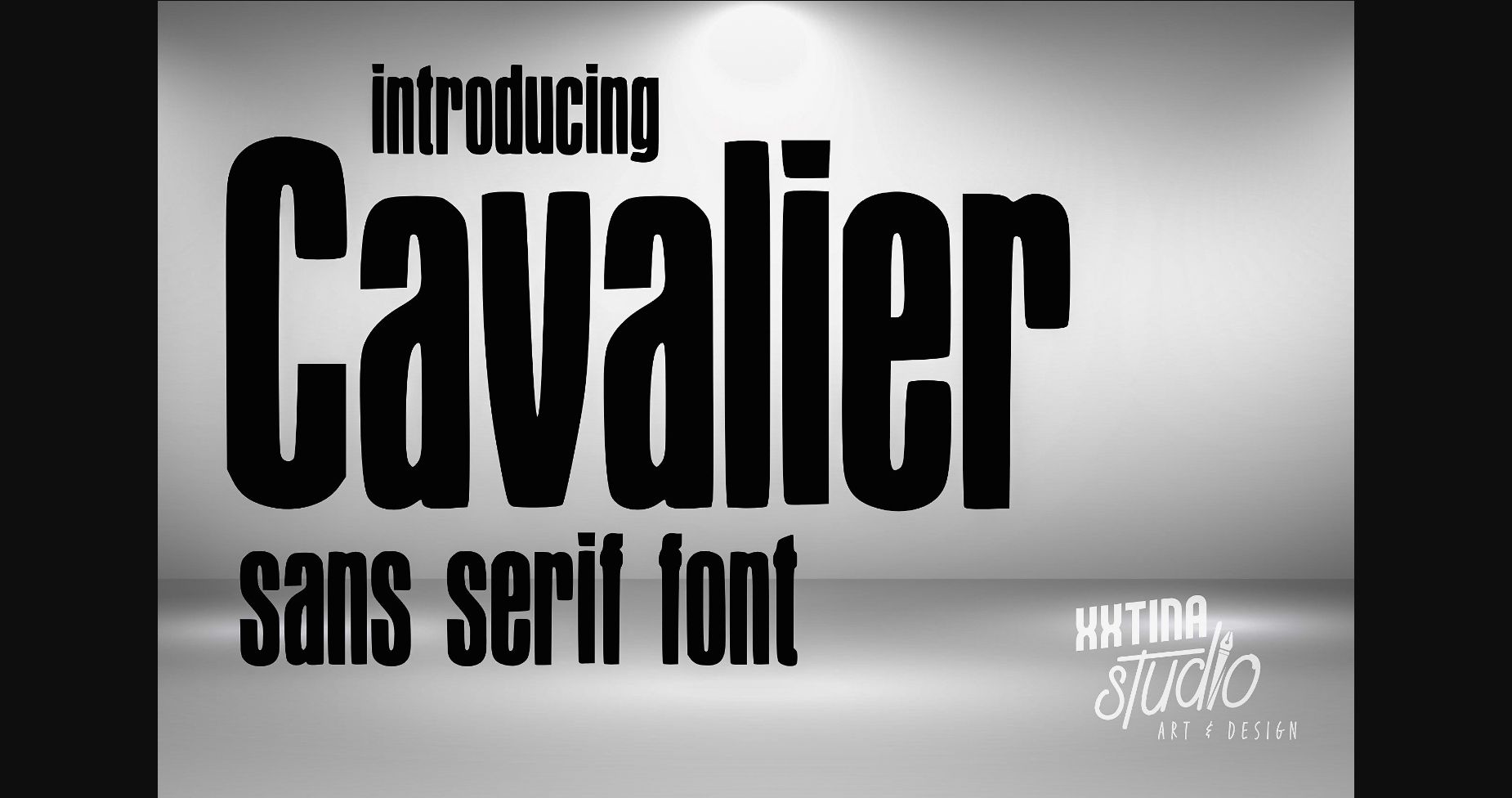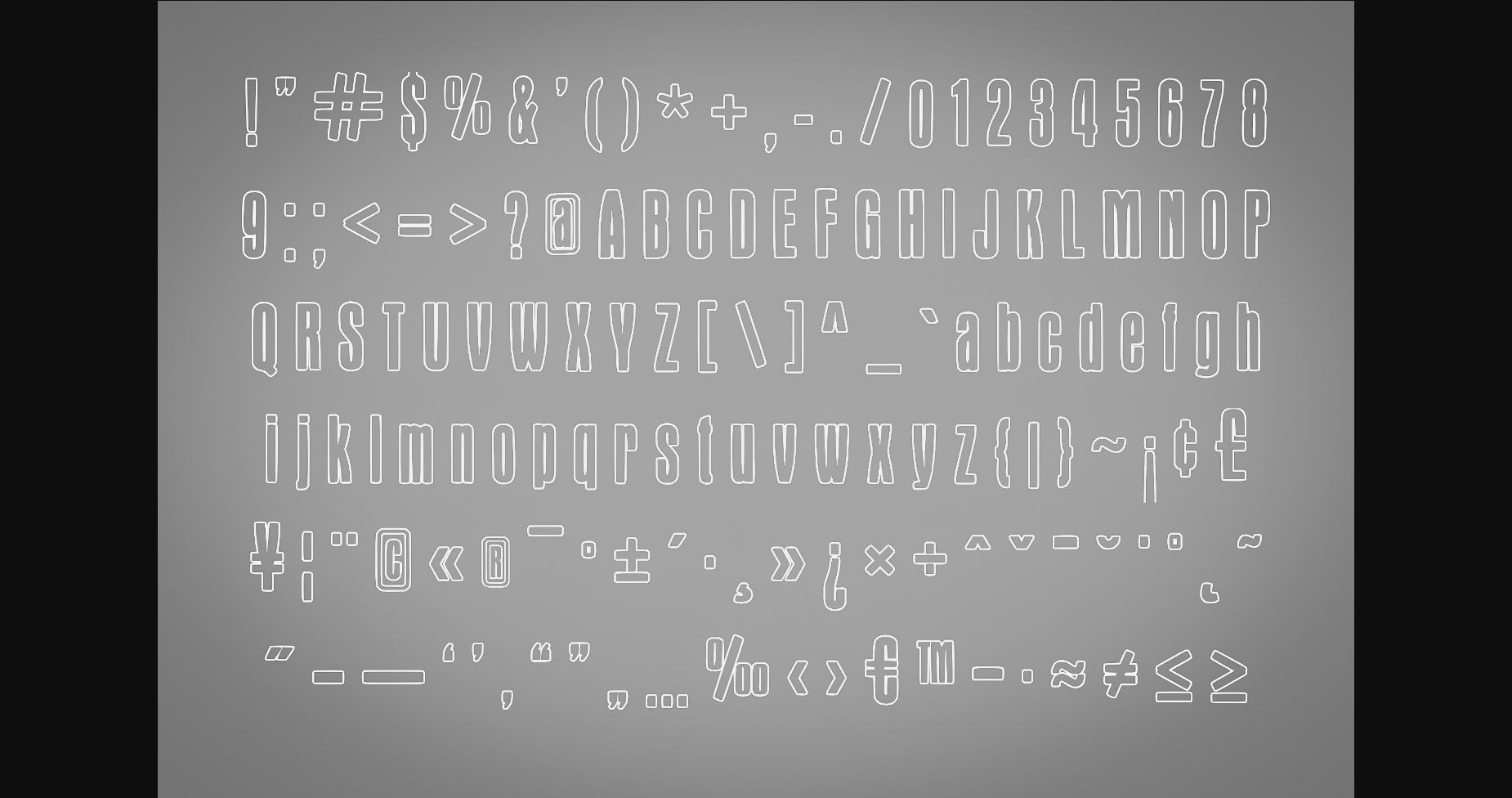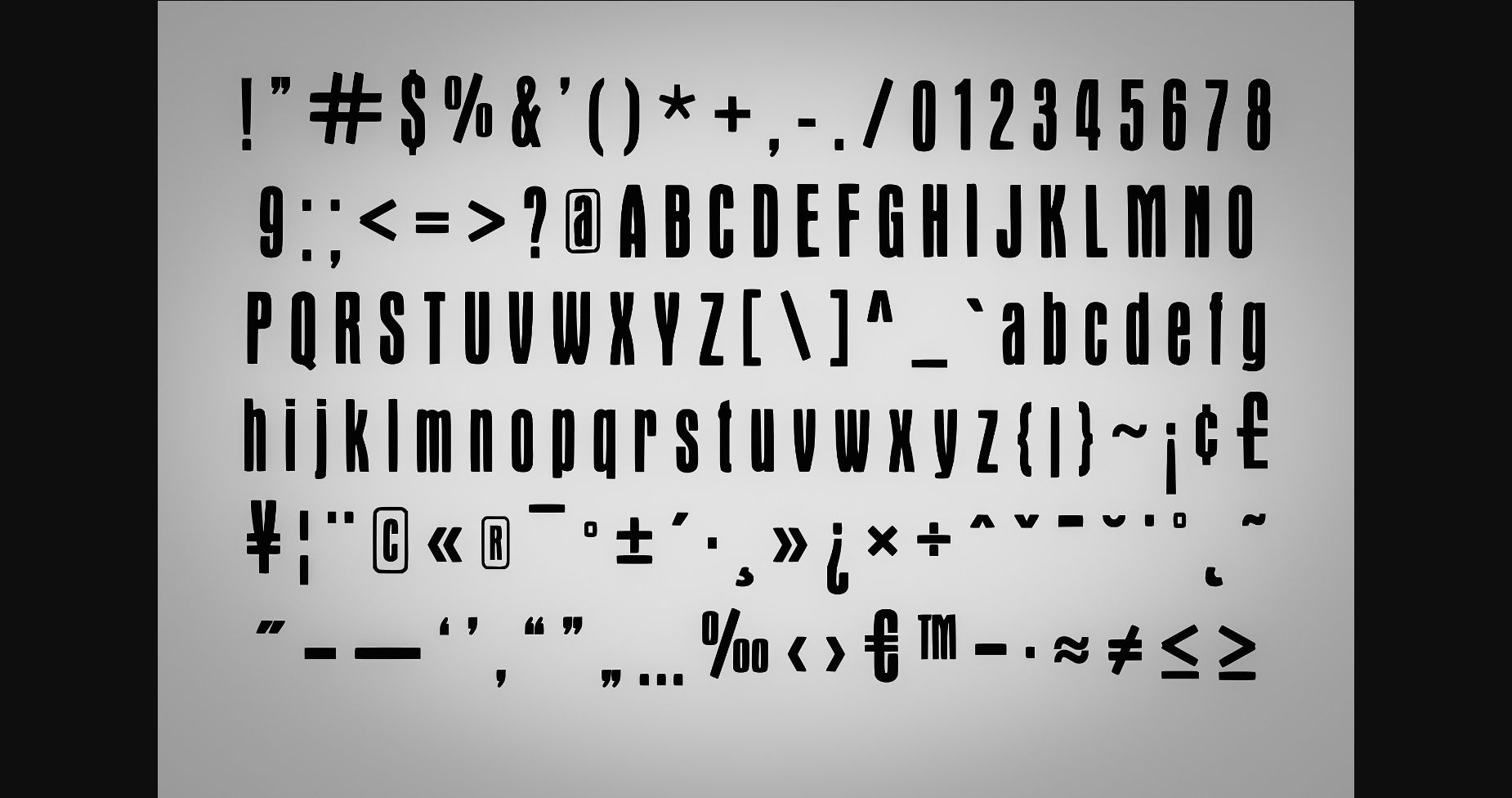
HomeSans Serif FontsCavalier Font Sans Serif Fonts Cavalier Font FacebookXPinterestWhatsApp 1 of 5 ... Cavalier Font Poster 2... Cavalier Font Poster 3... Cavalier Font Poster 4... Cavalier Font Poster 5... About Cavalier Font Cavalier is a cool and modern sans serif font. Fall in love with its versatile style and bring your projects to the highest levels! DOWNLOAD NOW People also explored Simple House Font Mama Bear Font Decofast Font Hello Winter Morning Honey Duo Font Daniza Claretta Font Qixohe Font Cross Font Charlotte Font 262 0 TagsCavalier Font Previous articleMontage FontNext articleLocal Bookstore Font LEAVE A REPLY Cancel reply Comment: Please enter your comment! Name:* Please enter your name here Email:* You have entered an incorrect email address! Please enter your email address here Website: Save my name, email, and website in this browser for the next time I comment. Personal Use Free Concre Personal Use Free Read more about this font Antaro Personal Use Free Read more about this font Talking on Personal Use Free Read more about this font Avagan Personal Use Free Read more about this font BLOG Top 7 Google Fonts Alternatives for Faster and Privacy-Friendly Web Design (2025) Top 7 Google Fonts Alternatives for Faster and Privacy-Friendly Web Design (2025) When it comes to web typography, Google Fonts has long been the go-to... 5 Fonts That Will Dominate Design Trends in 2026 Fonts That Capture the Spirit of New York City The 10 Best Handwriting Fonts to Add Personality to Your Designs